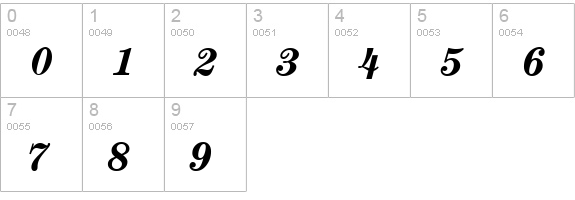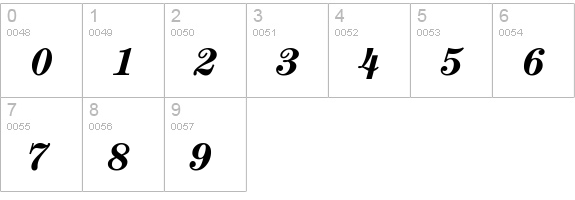
CenturyNova-BoldItalic Font Details
CenturyNova-BoldItalic font is a striking and elegant typeface designed for bold statements and eye-catching designs. Its unique combination of bold weight and italic slant exudes a sense of confidence and sophistication. The strong, clean lines and distinctive curves of this font make it perfect for headlines, titles, and branding materials that demand attention. What makes CenturyNova-BoldItalic even more appealing is that it is available for free download at FontsMarket.com. This means you can easily add this stylish font to your collection without any cost. Whether you are working on a professional project or a personal design, CenturyNova-BoldItalic is a versatile and powerful font choice that is sure to make a lasting impression. Download now and elevate your designs with this modern and timeless typeface.